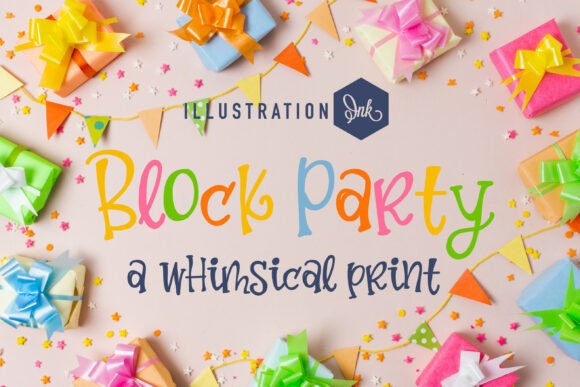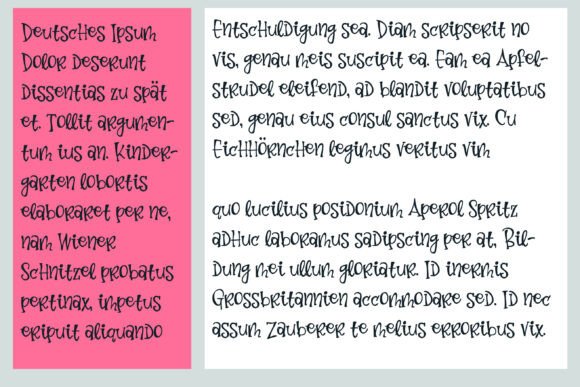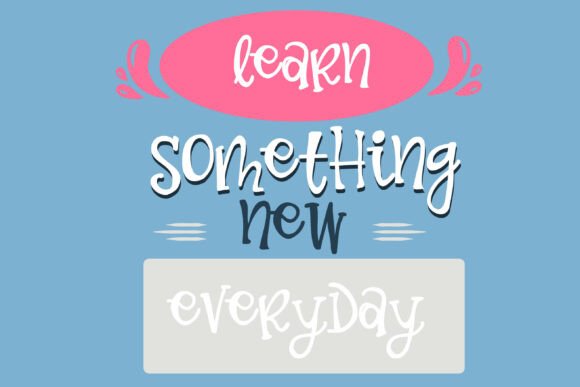
Zp block party fn is a lively and whimsical print font that bursts with color, fun, and energy. Each letterform dances with personality—featuring bouncy baselines, playful curves, and hand-drawn charm that captures the spirit of celebration. Designed to feel like a joyful gathering, the font mixes quirky letter shapes with a casual flow, making it perfect for party invitations, children’s designs, crafts, product packaging, and festive branding. Whether you use it in vibrant colors or clean monochrome, Block Party brings a cheerful, handmade vibe that adds warmth and excitement to any creative project. It’s bold, bright, and ready to celebrate!
Zp Block Party Fn Font